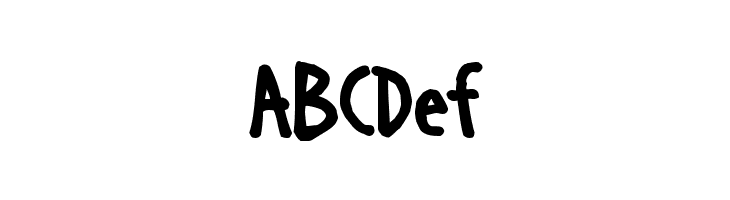
Aurum Font
- Font: Aurum
( Fonts by Astigmatic One Eye Typographic Institute - Brian J. Bonislawsky - astigmatic.com )
A bold, handwritten font with a playful and informal style.